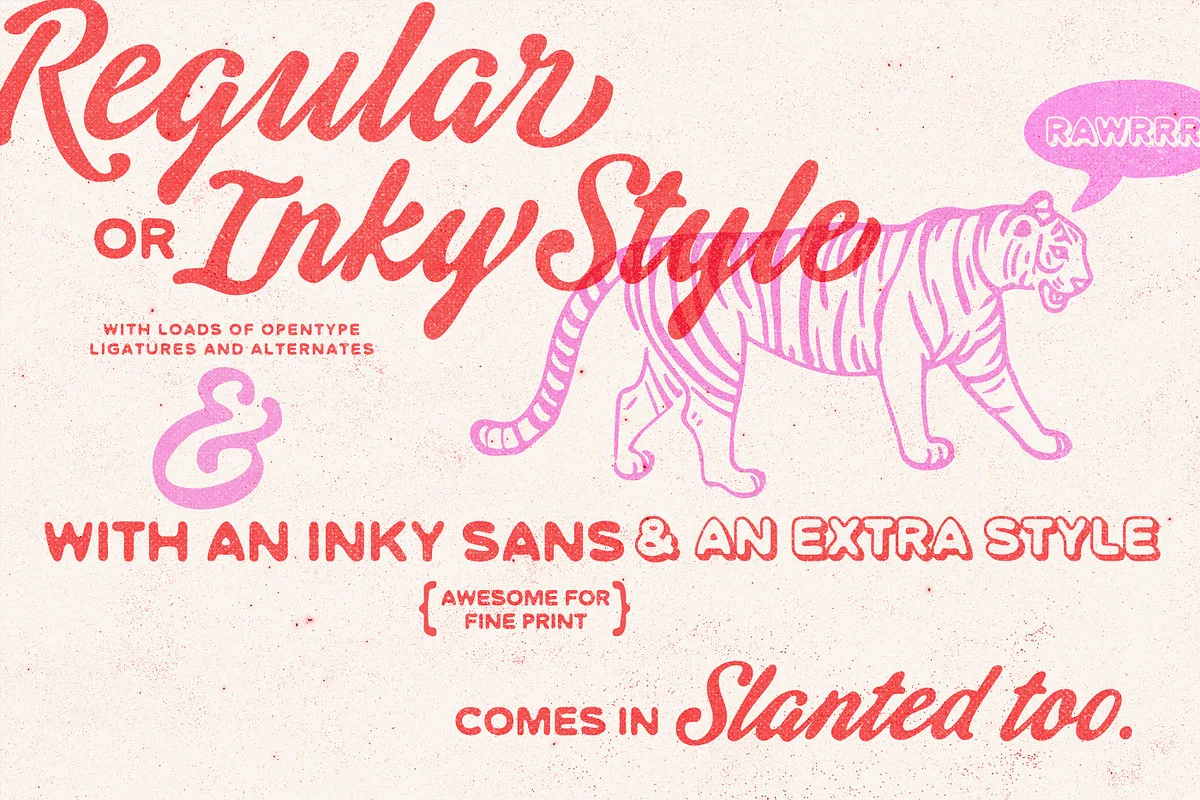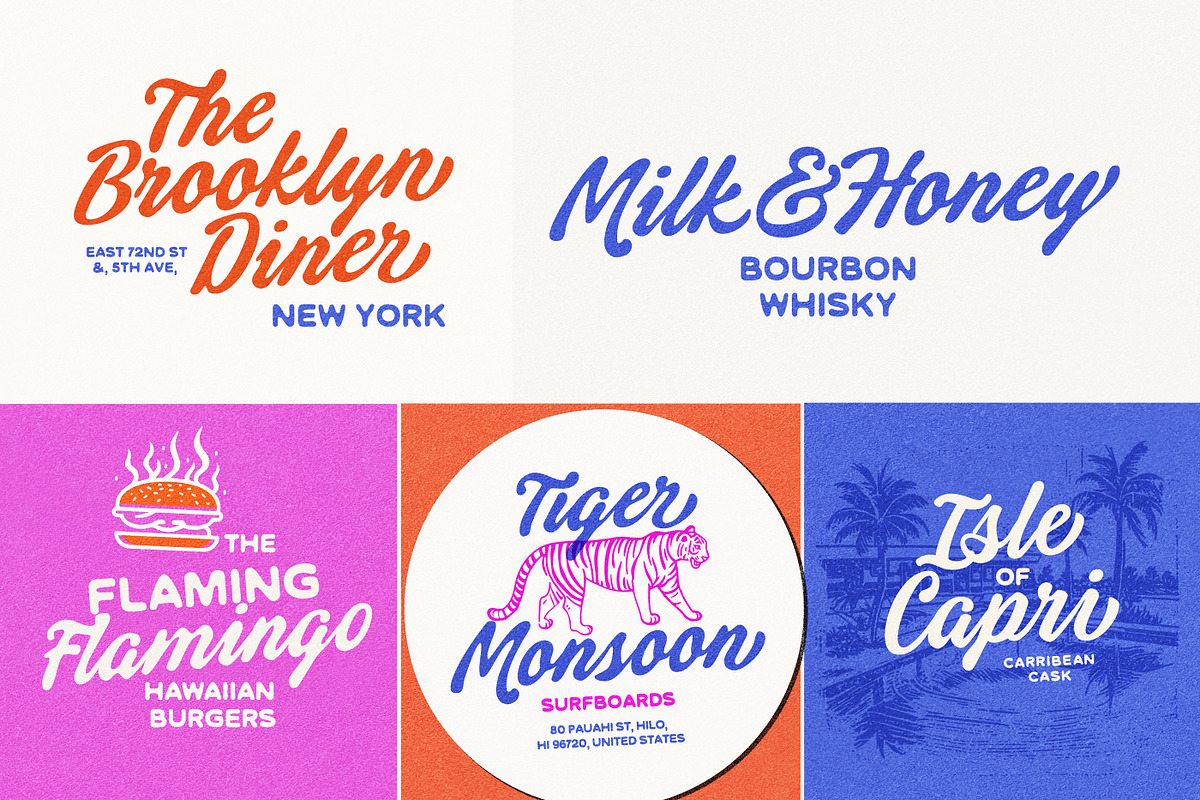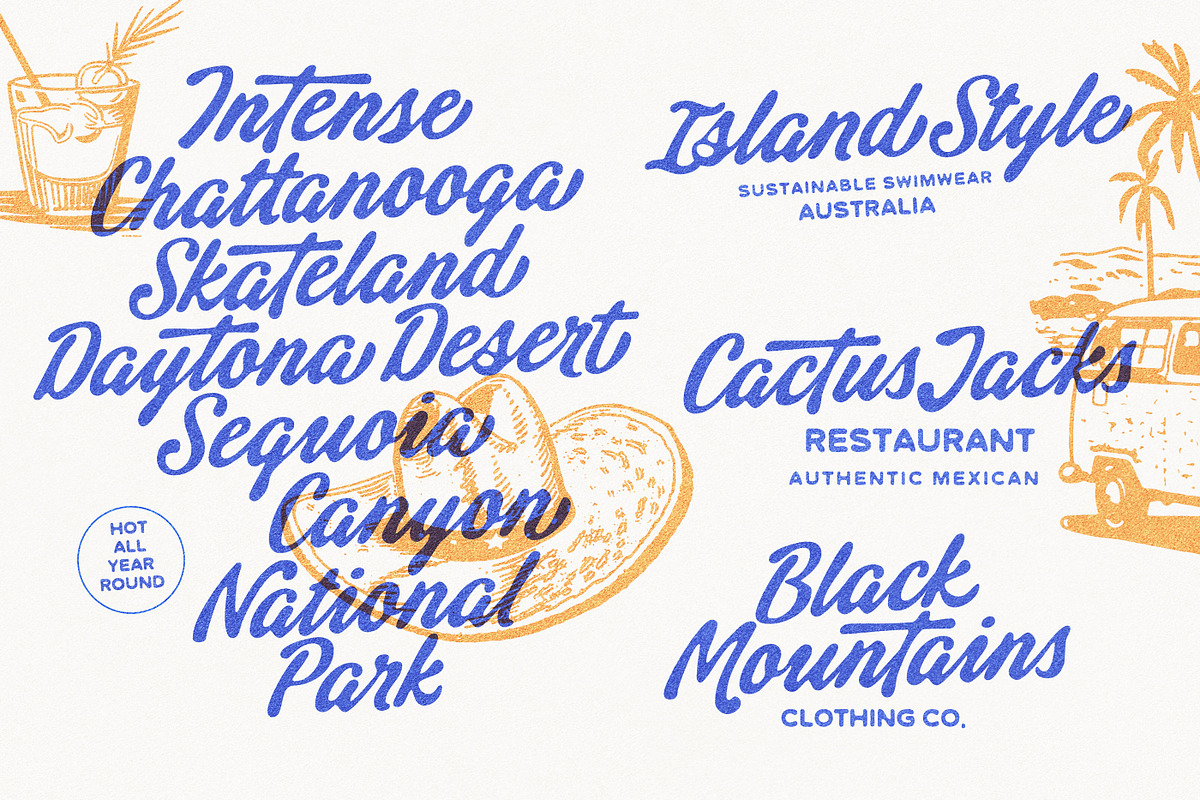
Say hello to Tequila Sunrise! A Typeface consisting of a Retro-Modern Script and a Inky Sans to match. The Script has some beautiful alternates and ligatures built into its Opentype Features, to really make her stand out from the rest.
The Script comes in a clean version, an inky version, and a more inky version – take your pick. Each variation has a slanted version included too. The Inky imperfect sans, also has a ‘ dropshadow’ style variation to add even more interest to your design.